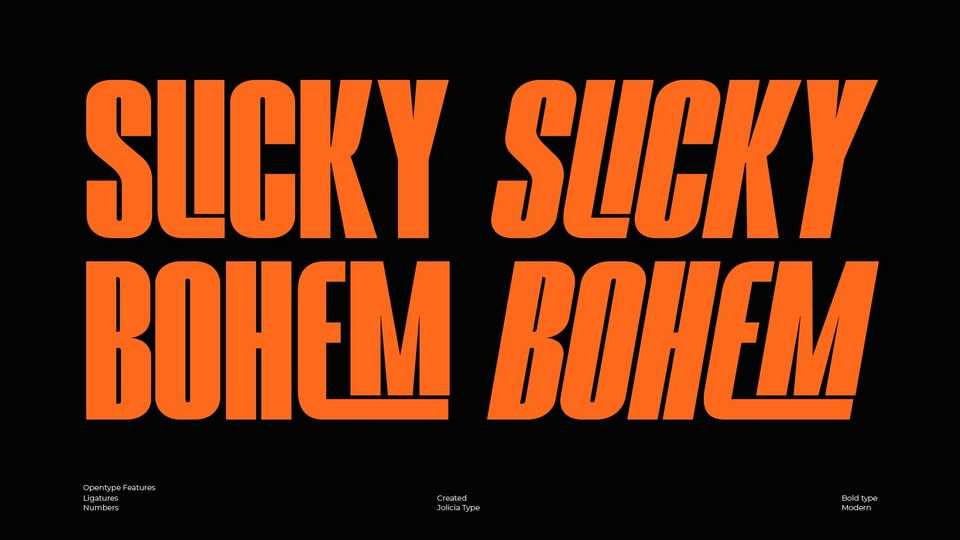
Download Slicky Bohem font, a bold condensed typeface that is strong geometric. with a variety of discretionary ligatures to give you all you need for great typography.